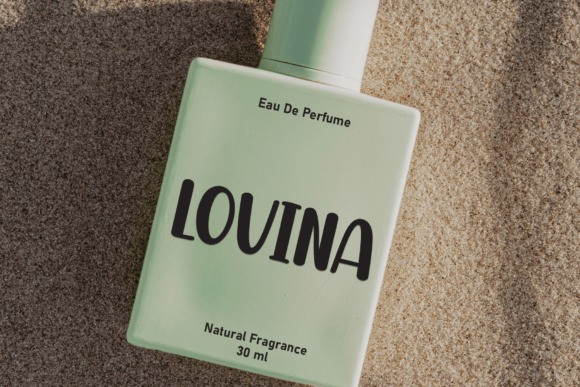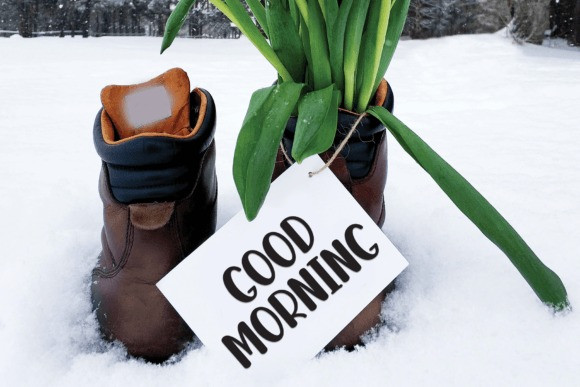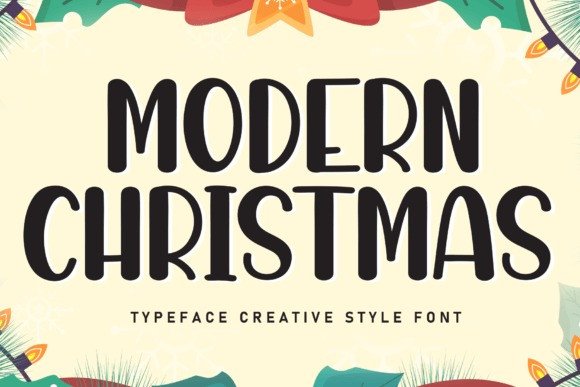
Modern Christmas Typeface
Modern Christmas Typeface, is a sweet and friendly handwritten font. Its natural and unique style makes it incredibly fitting to a large pool of designs. The only limit is your imagination!